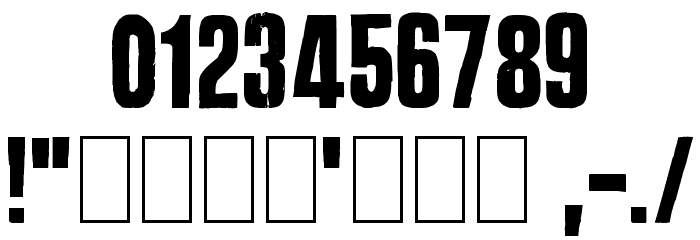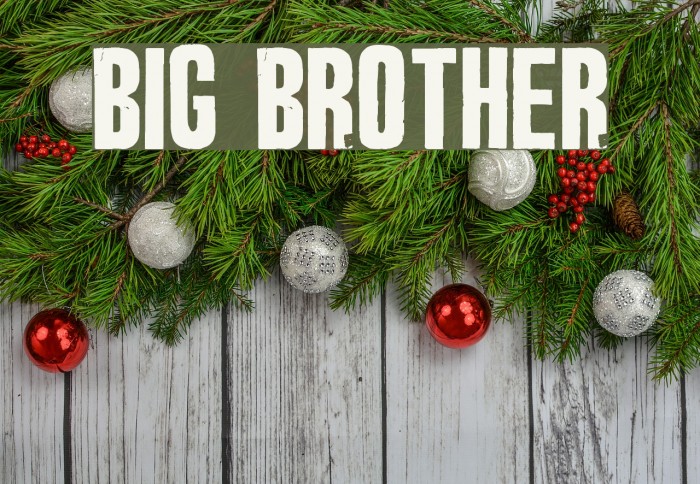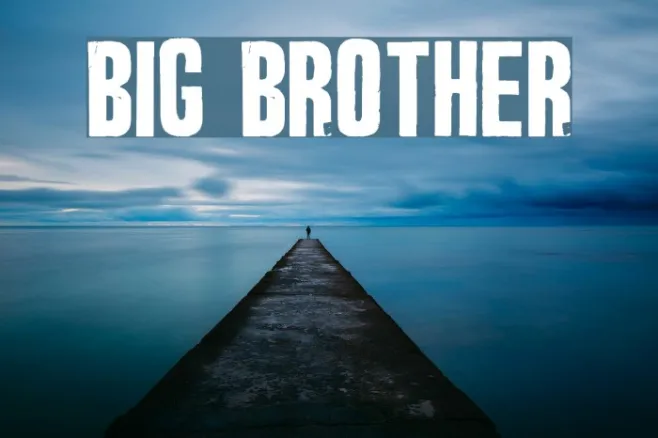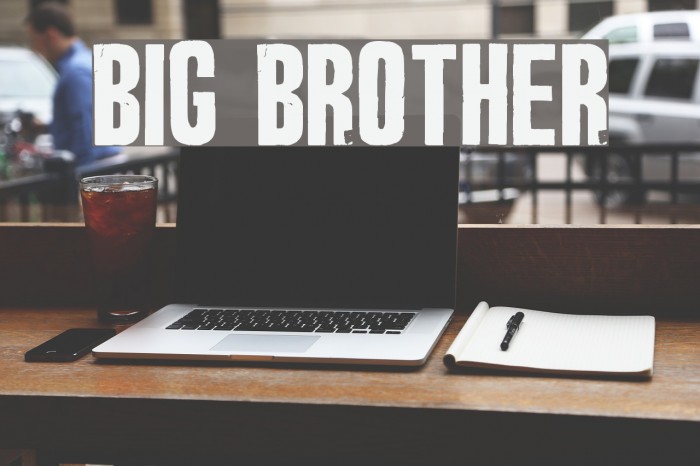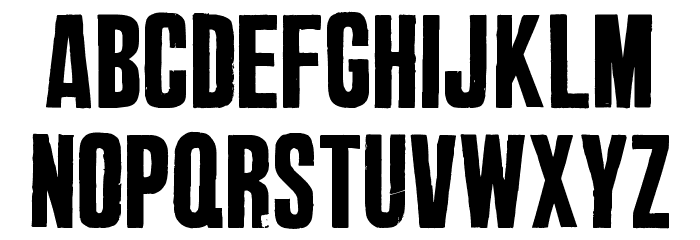
Big Brother Font
Big Brother Description
This font features a bold, distressed style with a rugged, textured appearance. The uppercase letters are prominent and impactful, making it ideal for attention-grabbing designs. The characters have a slightly uneven texture, giving them a vintage, worn-out look. The numbers and special characters maintain this distressed aesthetic, ensuring consistency throughout. This font is perfect for projects that require a strong, bold statement with a touch of grunge or retro flair.
| Overall Style | Vintage |
| Proposed Projects | Ideal for posters, album covers, branding, and any design needing a bold, vintage touch. |